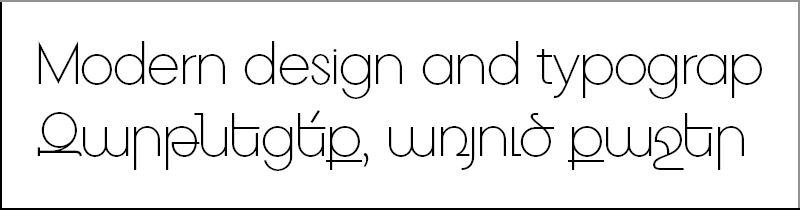
Display typefaces, Edik Ghabuzyan
GHEA Kamar
Design date: 2014
The font family includes Armenian and Latin alphabet systems.
The font can be used as a Display or Title font.